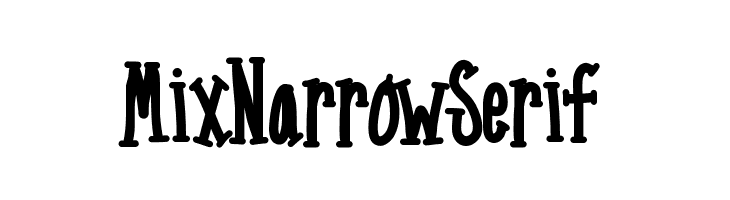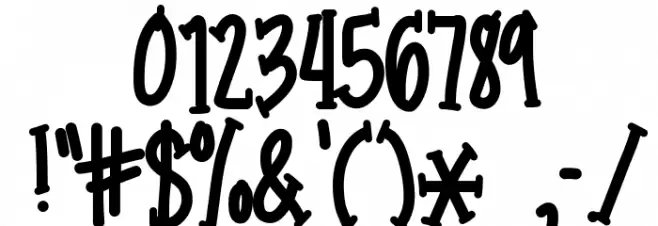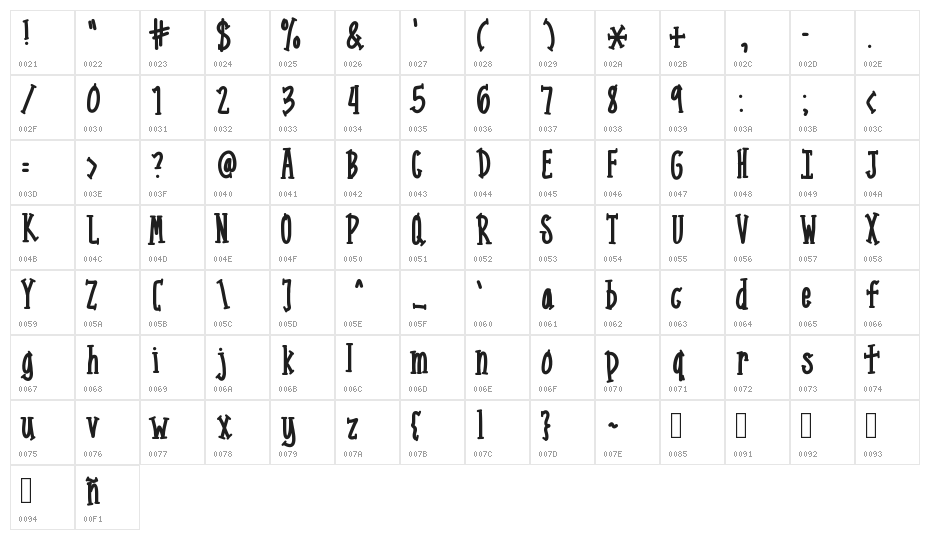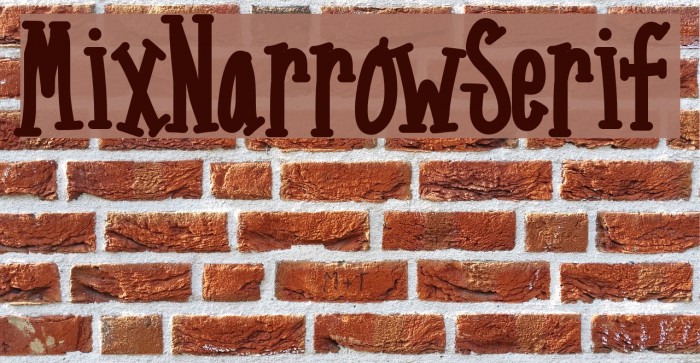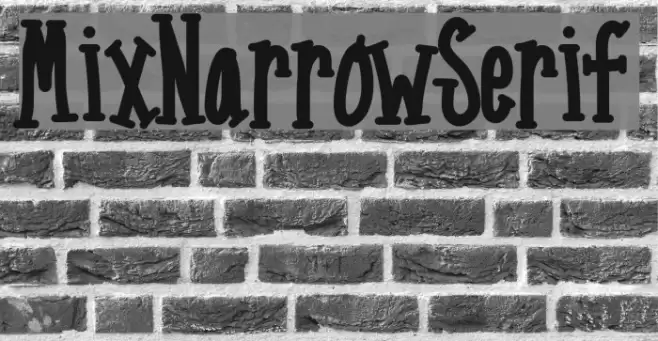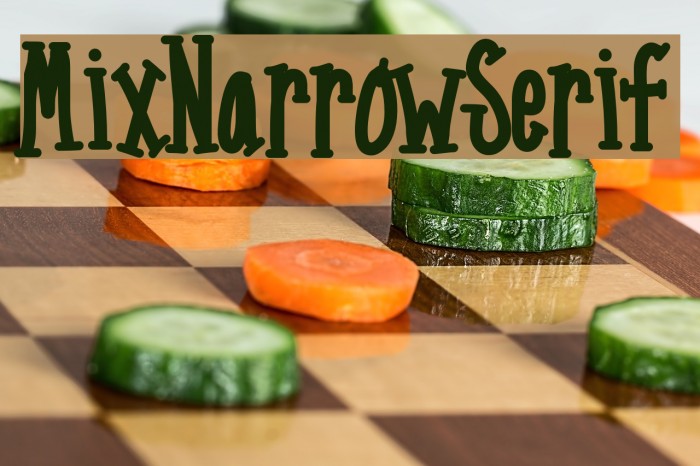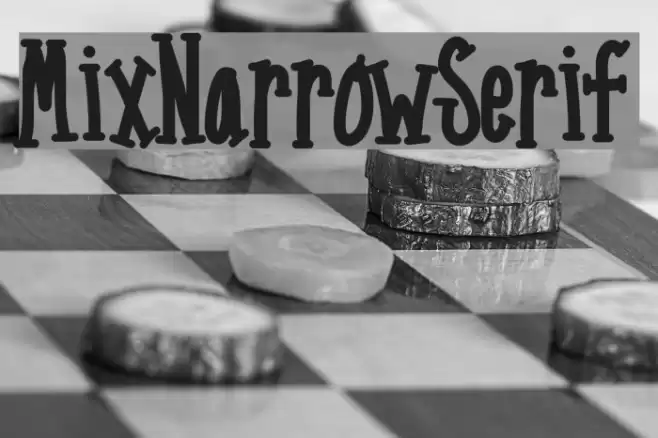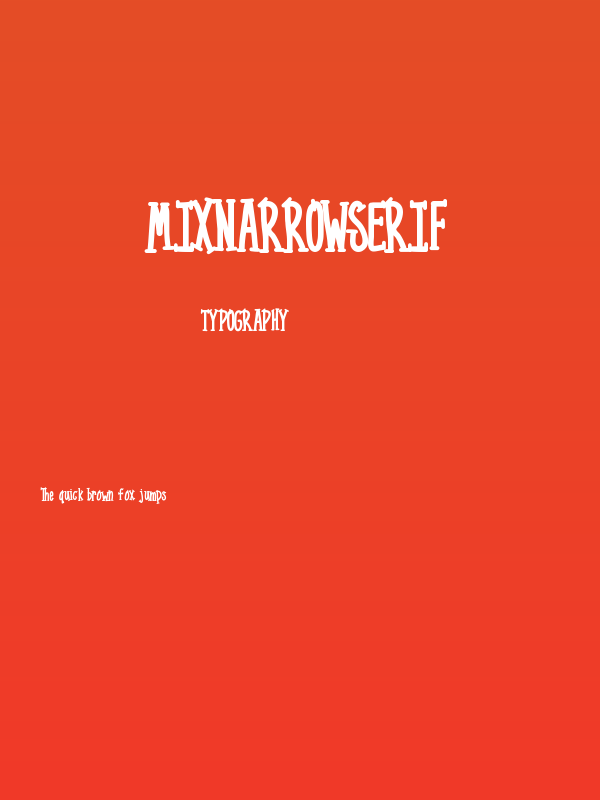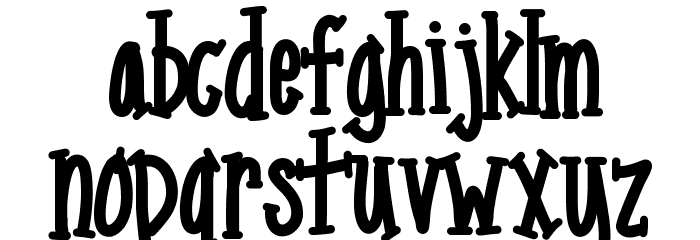
MixNarrowSerif Font
MixNarrowSerif Description
This font features a playful and bold design with a hand-drawn aesthetic. The characters are tall and narrow, with a whimsical flair that adds a sense of fun and creativity. The uppercase and lowercase letters maintain a consistent style, with exaggerated serifs and a slightly uneven baseline that enhances its informal appearance. The numbers and special characters follow the same design principles, making them cohesive with the alphabet. This font is ideal for projects that require a touch of personality and charm.